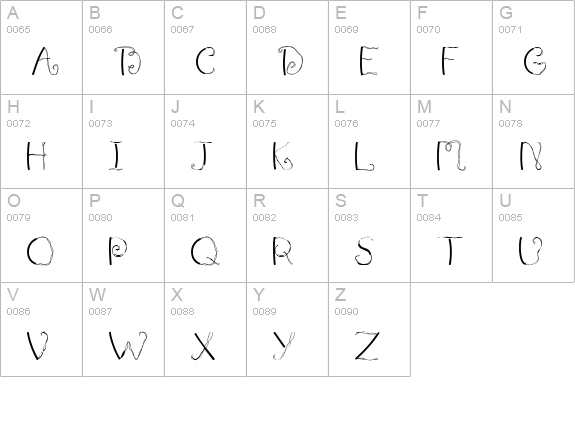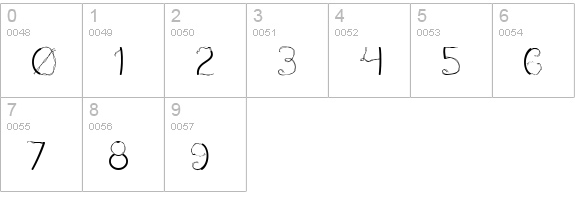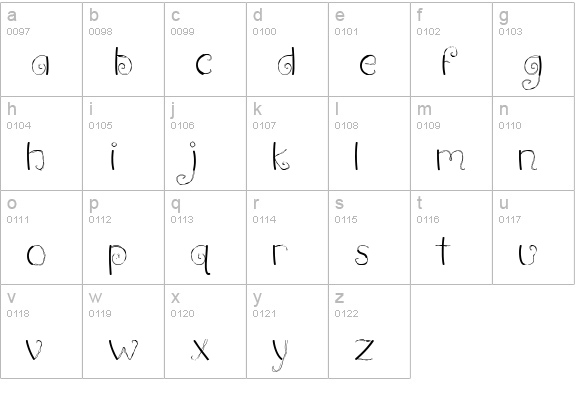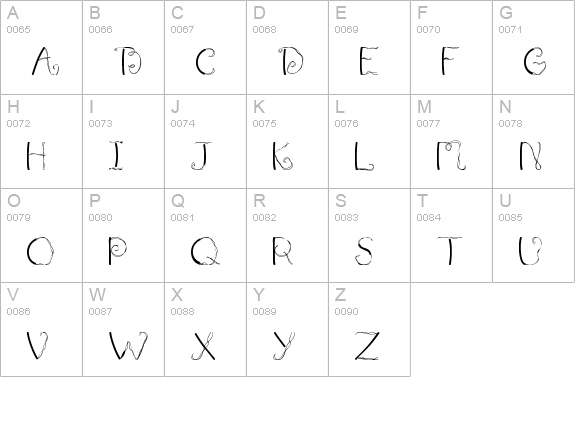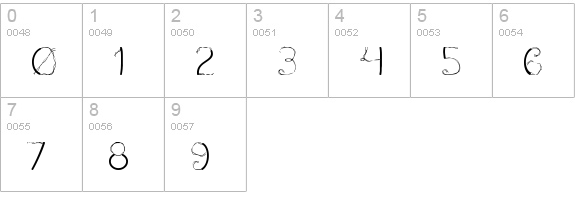
CK Frayed Font Details
Introducing CK Frayed font, a unique and edgy typeface that adds a touch of ruggedness to your designs. The rough, worn-out edges give this font a distressed look, perfect for adding a grungy vibe to posters, album covers, and more. CK Frayed font is versatile and works well for both display and body text, making it a great choice for various design projects. Best of all, CK Frayed font is available for free download at FontsMarket.com. Whether you're a designer looking to add some texture to your creations or a hobbyist wanting to experiment with a new font style, CK Frayed font is a fantastic choice. Don't miss out on this opportunity to enhance your designs with this eye-catching and unique typeface. Download CK Frayed font today and let your creativity shine!